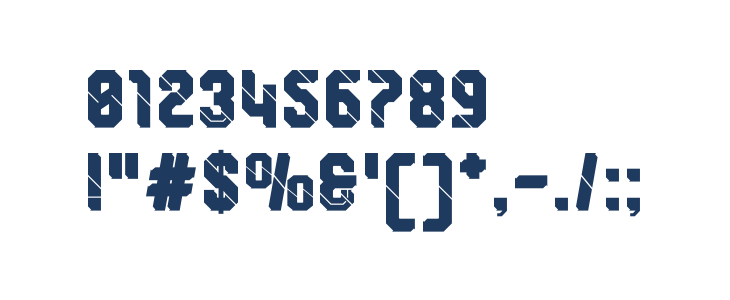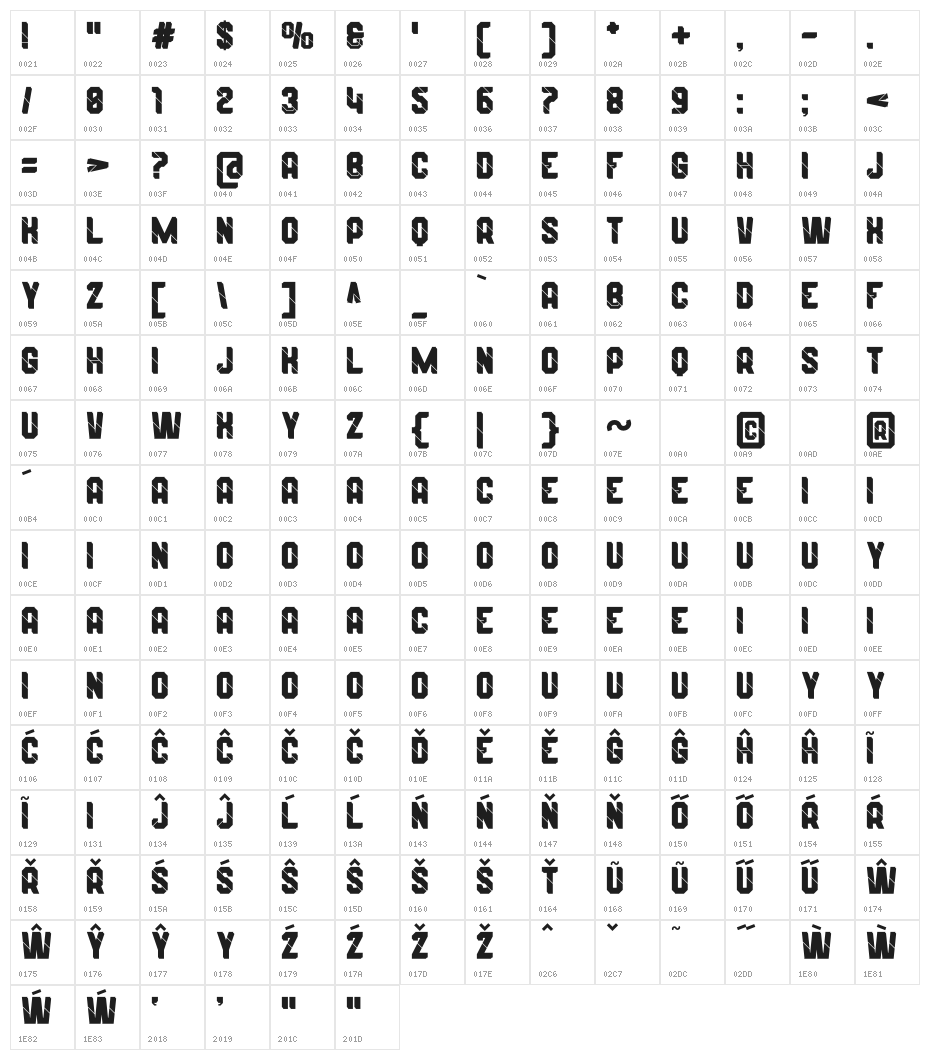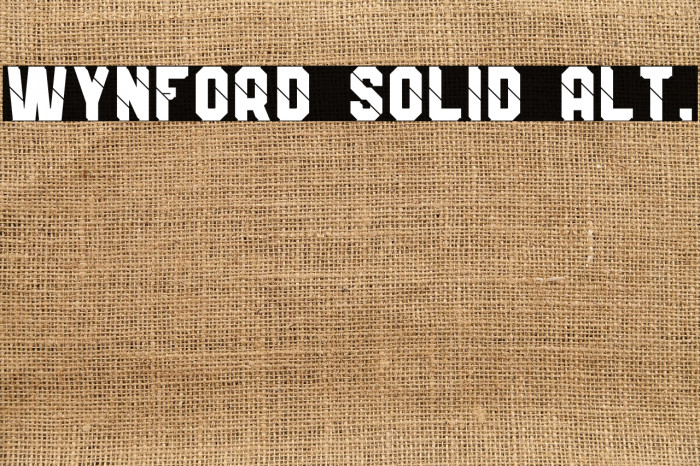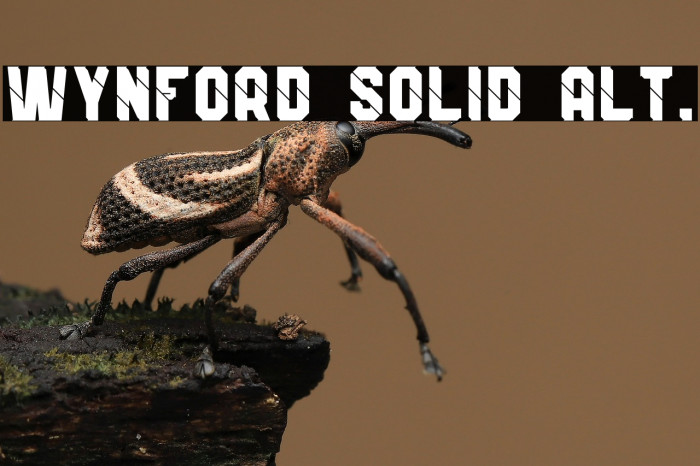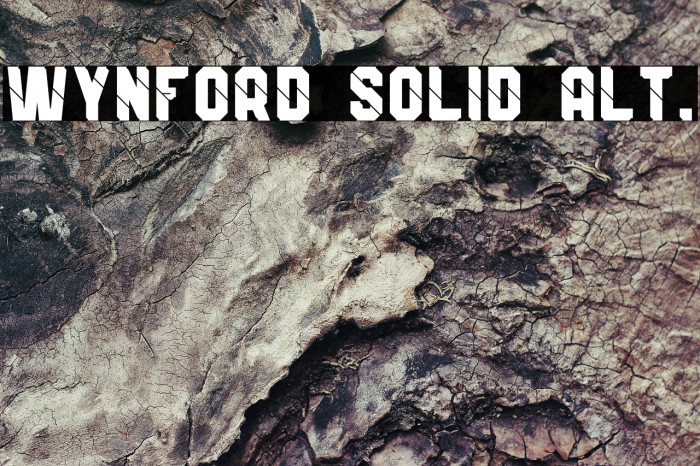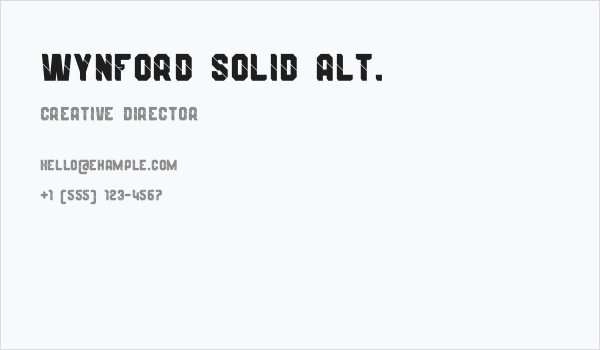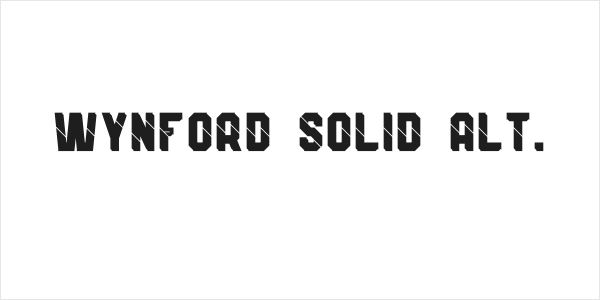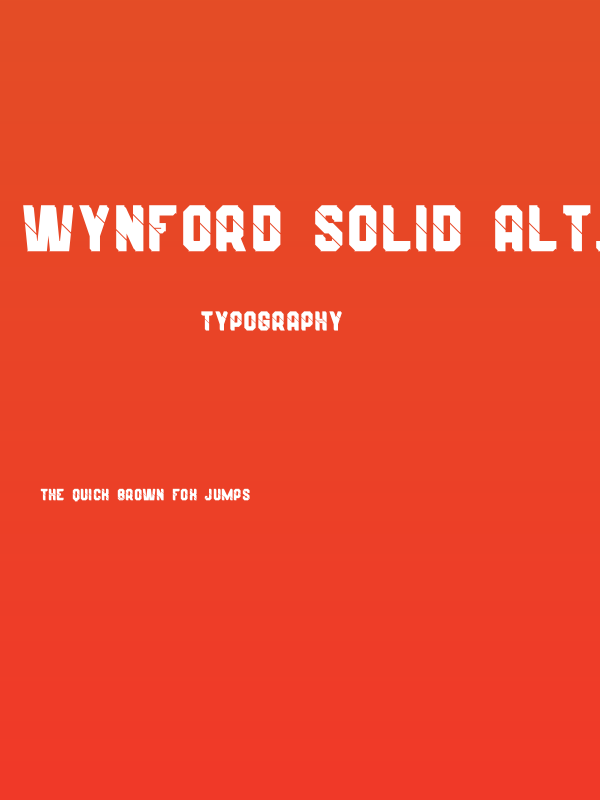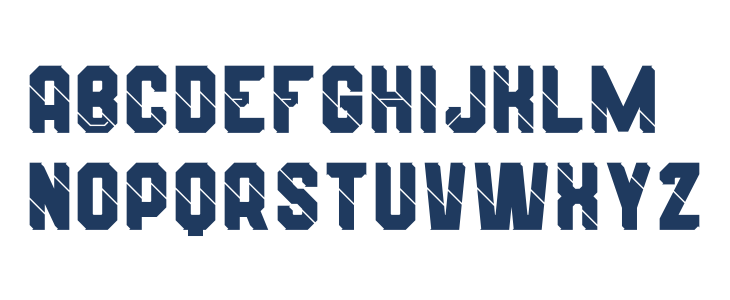
Wynford Solid Alt. Font
Wynford Solid Alt. Description
This font features a bold, geometric design with a solid, angular appearance. The characters are constructed with sharp, straight lines and a blocky structure, giving it a modern and industrial feel. The uppercase and lowercase letters maintain a consistent style, with the uppercase being slightly more prominent. Numbers and special characters follow the same design principles, ensuring uniformity across all glyphs. The font's distinct, edgy look makes it stand out, ideal for projects that require a strong visual impact.
| Proposed Projects | Ideal for branding, posters, headlines, and any design requiring a strong, impactful presence. |